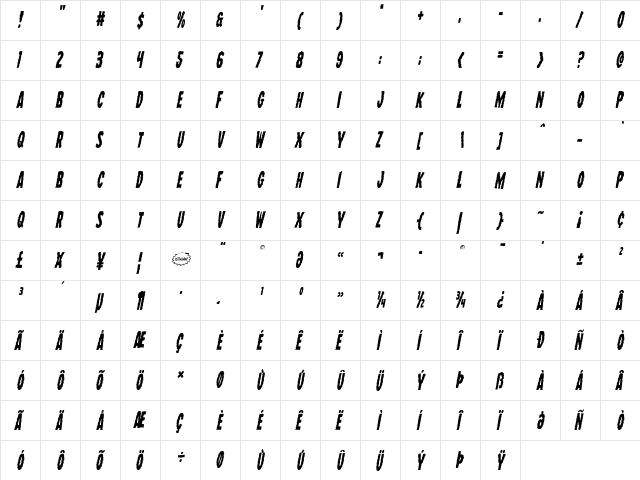
Wolf Brothers Condensed Italic Font Preview
Design Context for Wolf Brothers Condensed Italic Typeface
Wolf Brothers Condensed Italic takes a measured approach to typography — its balanced proportions and neutral character make it a reliable workhorse for both digital and print work. The slanted form adds forward momentum and visual energy. Its narrow stance lets it pack a punch even in space-constrained designs.
Pro Tip: Try Wolf Brothers Condensed Italic for annotation and caption copy alongside an upright companion — the contrast in angle creates a dynamic but ordered typographic system.